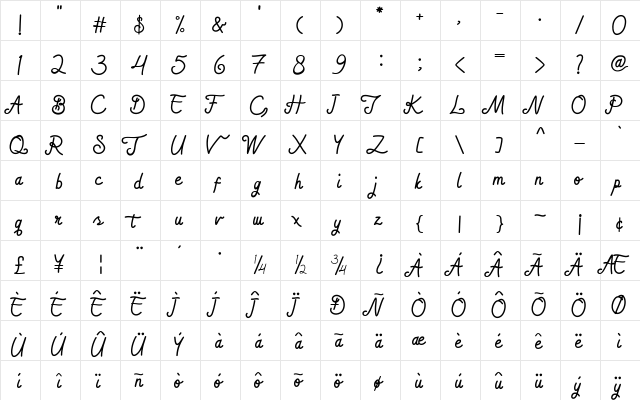
bradlay Regular
| Foundry | abdul manan lab |
| Designer | belovestudio |
Design Context for bradlay Typeface
bradlay is a composed and adaptable typeface that performs quietly and consistently across a wide range of design contexts.